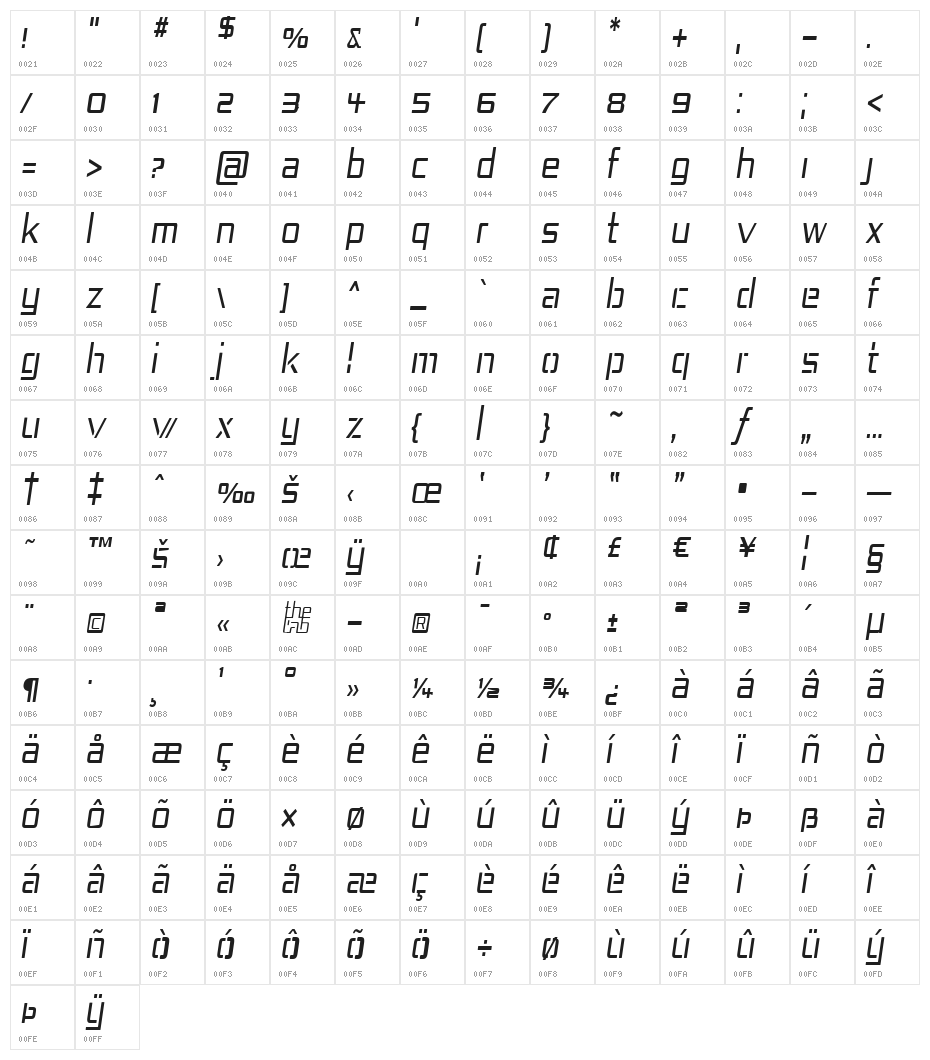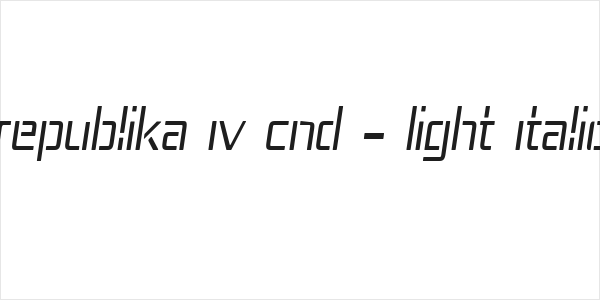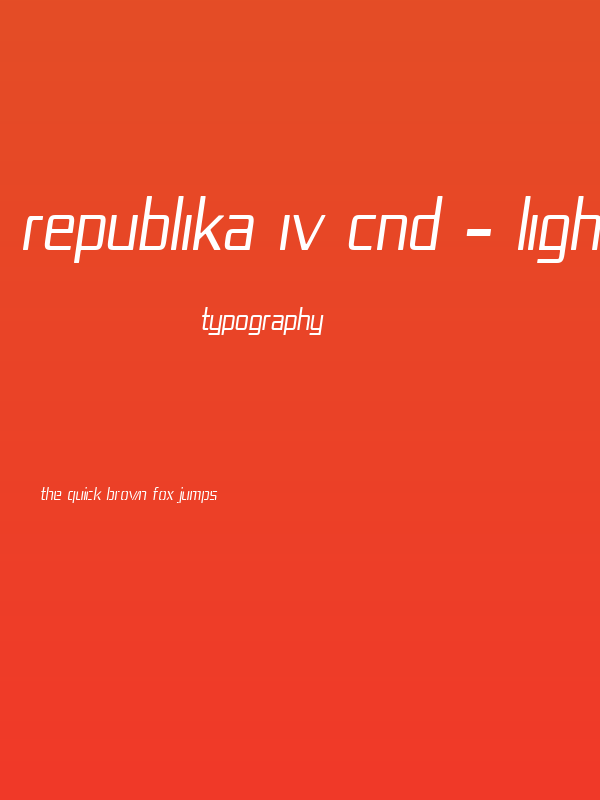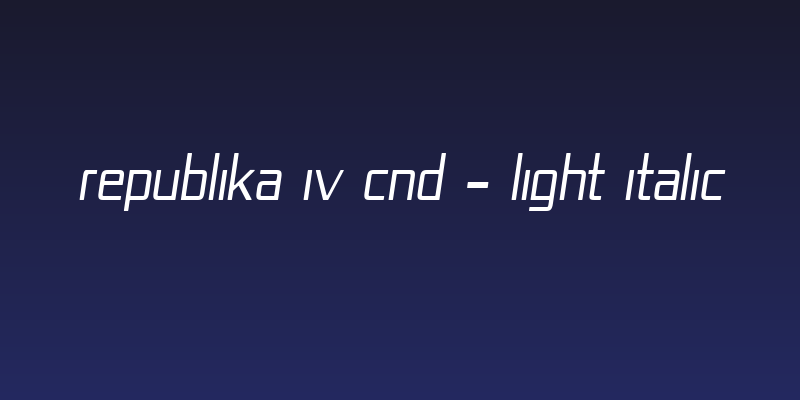
Republika IV Cnd - Light Italic Font
Republika IV Cnd - Light Italic Description
This font features a sleek, modern design with a condensed and italicized style. The characters are elongated with a consistent stroke width, giving it a streamlined and futuristic appearance. The letters have a geometric structure, with sharp angles and clean lines that enhance its contemporary look. The numerals and special characters maintain the same design principles, ensuring uniformity across all glyphs. This font's light weight adds to its elegance, making it suitable for projects that require a sophisticated yet modern touch.
| Proposed Projects | Ideal for technology branding, modern advertising, sleek packaging designs, and innovative digital interfaces. |